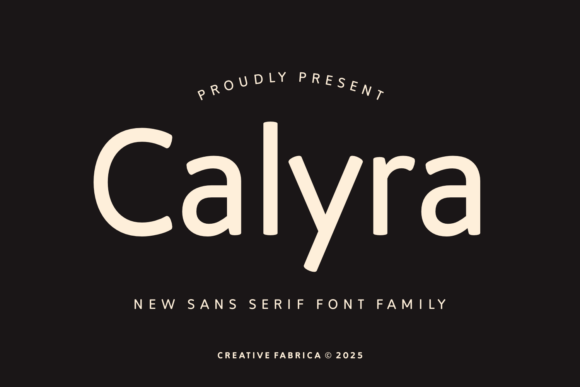
Introducing Calyra Font: A Modern Sans-Serif Typeface for Elegant Readability
In the world of typography, fonts play a crucial role in conveying messages, evoking emotions, and establishing brand identities. With the ever-evolving landscape of digital and print design, the demand for versatile, readable, and aesthetically pleasing typefaces has never been higher. It is in this context that Calyra Font emerges as a refined sans-serif font family, drawing inspiration from the popular Calibri font while infusing it with a fresh perspective on modern readability and elegance.
Design Philosophy and Inspiration
Calyra Font is the result of meticulous design and a deep understanding of typographic needs in contemporary design. Inspired by Calibri, a font widely appreciated for its clarity and warmth, Calyra aims to push the boundaries of sans-serif typography. It retains the familiar friendly and approachable feel of Calibri but updates it with a more refined and sophisticated look. The design process involved a thorough analysis of what makes a typeface both readable and elegant, leading to the creation of a font that is not only beautiful but also highly functional.
Key Features of Calyra Font
Calyra Font boasts several key features that make it an excellent choice for a wide range of design applications:
- Smooth Curves and Balanced Proportions: Calyra’s design emphasizes smooth curves and balanced proportions, contributing to its elegant appearance and enhanced readability.
- Versatile Style Range: The font family includes six styles, ranging from Thin to Bold, each with matching italics. This versatility allows designers to create dynamic and engaging typographic hierarchies.
- Multilingual Support: Calyra is designed to be a global-ready typeface, offering multilingual support to cater to diverse linguistic and cultural needs.
- Clean and Modern Aesthetic: The clean lines and modern aesthetic of Calyra ensure clarity in both digital and print formats, making it suitable for a wide array of applications.
Applications of Calyra Font
The versatility and elegance of Calyra Font make it an ideal choice for various design projects:
- Branding: Calyra’s professional yet friendly look makes it perfect for branding projects, helping to establish a strong and approachable brand identity.
- Editorial Design: For magazines, newspapers, and books, Calyra’s readability and aesthetic appeal make it an excellent choice for body text and headlines.
- Presentations: The font’s clarity and modern look ensure that presentations stand out, whether in digital form or print.
- Web Typography: Calyra’s clean design and legibility on screens make it highly suitable for web use, enhancing user experience.
- Corporate Materials: For reports, brochures, and other corporate materials, Calyra offers a polished and professional appearance.
The Importance of Readability and Elegance in Typography
In today’s fast-paced digital age, the importance of readability and elegance in typography cannot be overstated. A font that is easy to read can significantly enhance user experience, making content more accessible and enjoyable to consume. Elegance in typography adds an extra layer of sophistication, elevating the overall design and potentially strengthening brand perception.
Calyra Font strikes a perfect balance between these two aspects. Its design ensures that text is not only easily readable but also visually appealing, making it a valuable asset for designers aiming to create impactful and beautiful work.
Calyra Font represents a significant advancement in sans-serif typography, offering a fresh take on modern readability and elegance. Inspired by the familiar comfort of Calibri but refined with a contemporary edge, Calyra is poised to become a go-to typeface for designers worldwide. Its versatility, coupled with its aesthetic appeal and functional benefits, makes it an excellent choice for a myriad of design applications.
Whether you’re working on branding, editorial design, presentations, web typography, or corporate materials, Calyra Font provides the tools necessary to create dynamic, engaging, and professional designs. With its smooth curves, balanced proportions, and friendly yet professional look, Calyra is not just a font but a design solution that meets the demands of modern design while pushing the boundaries of typographic excellence.